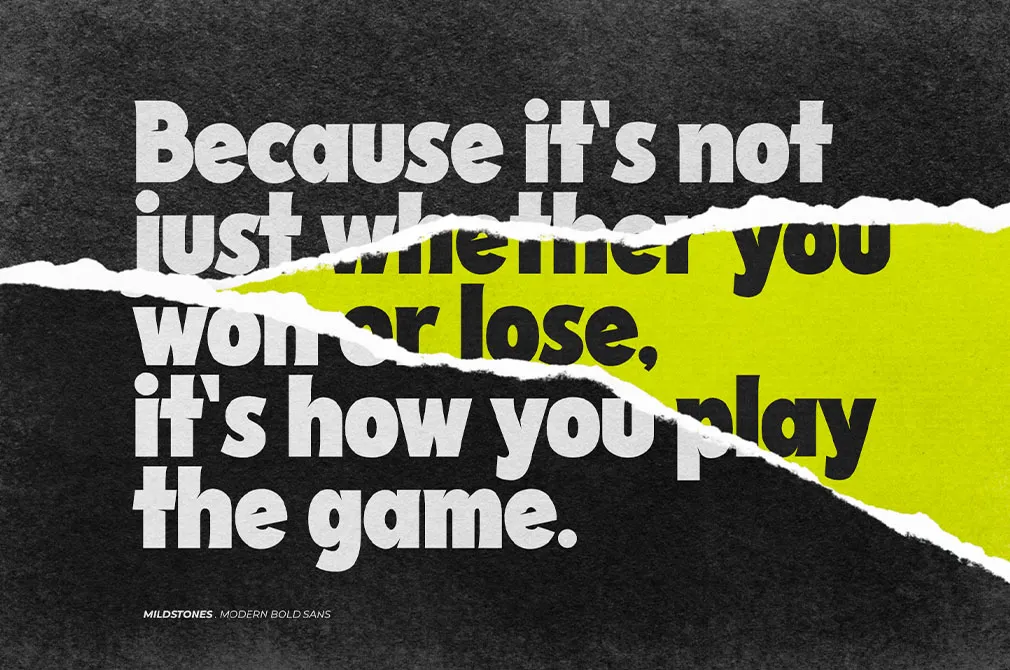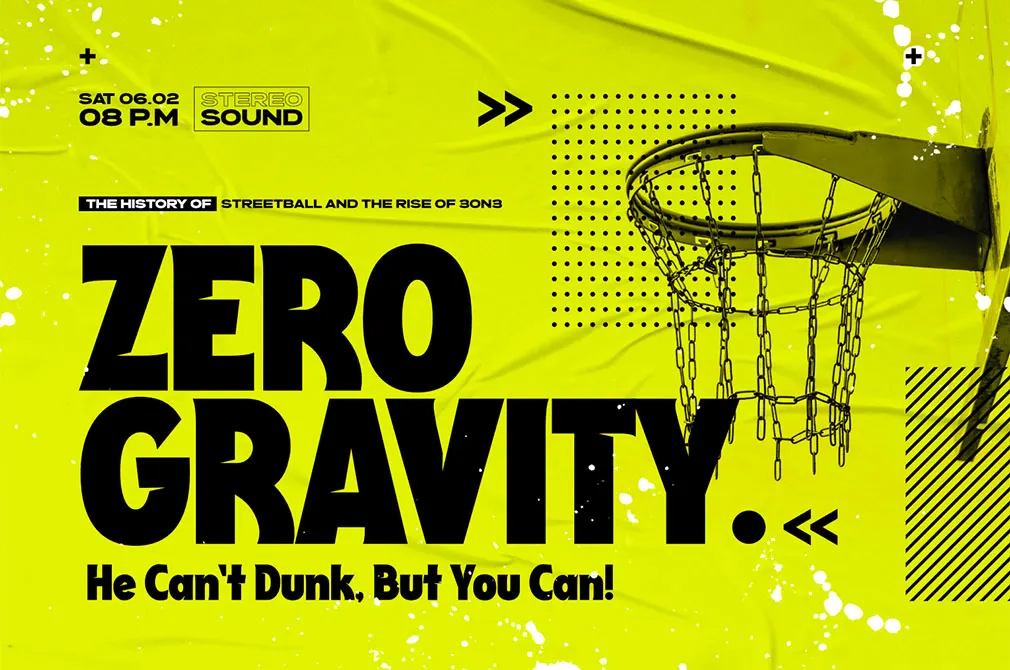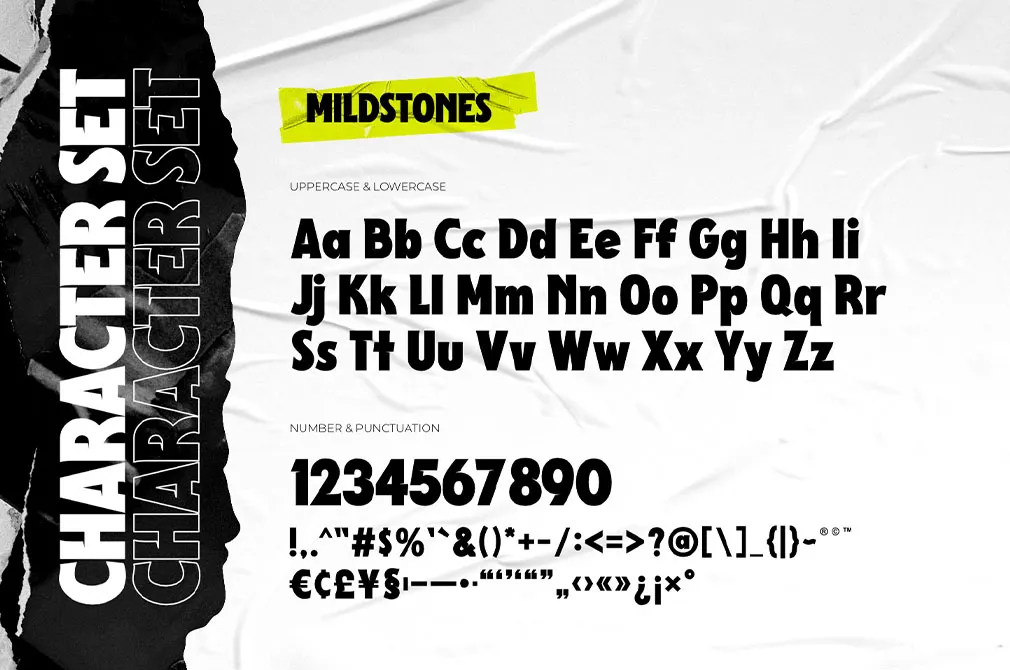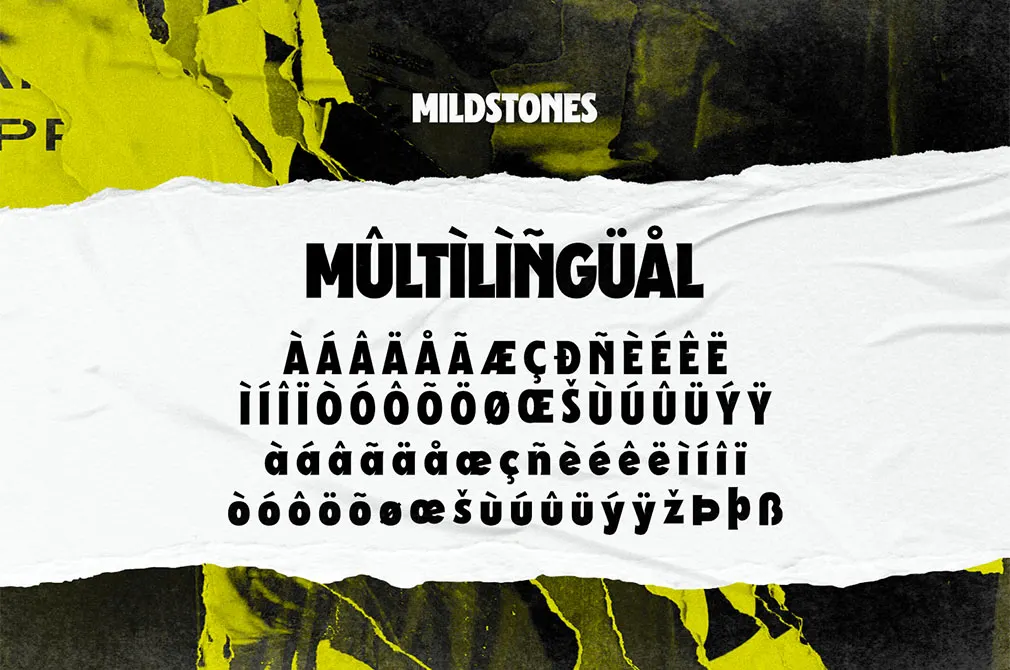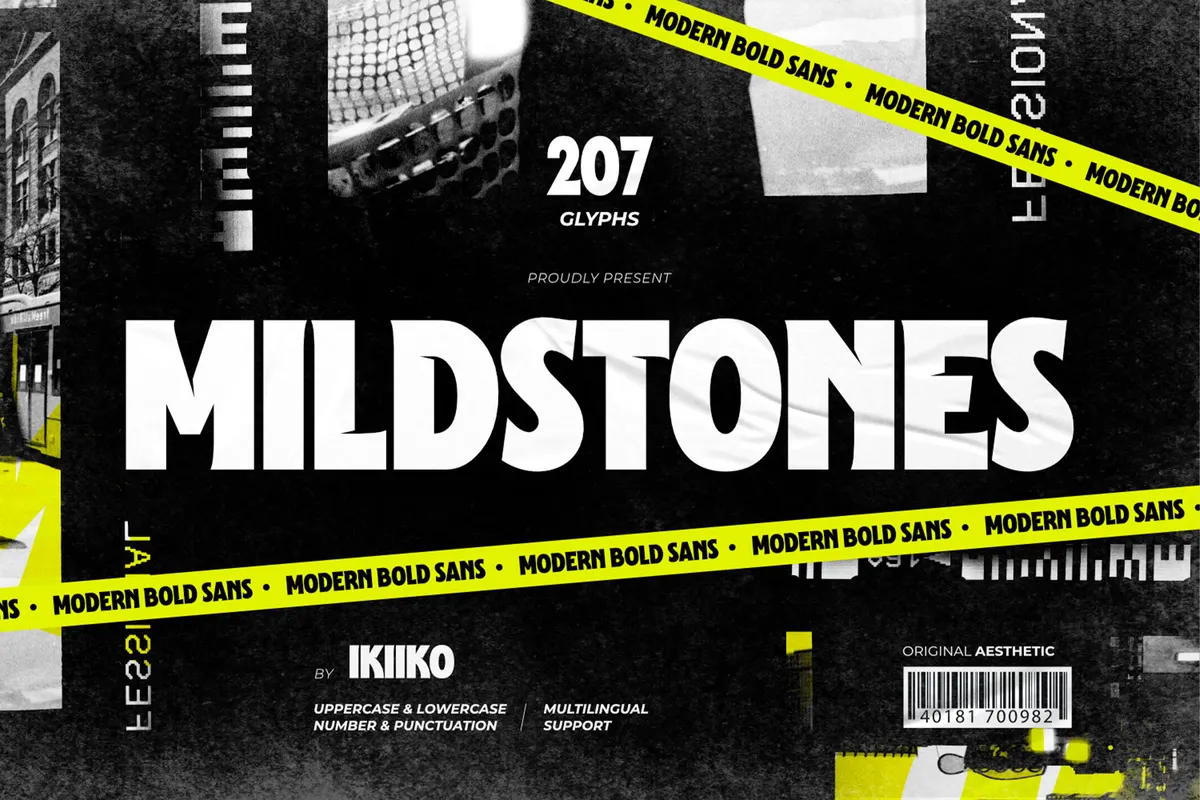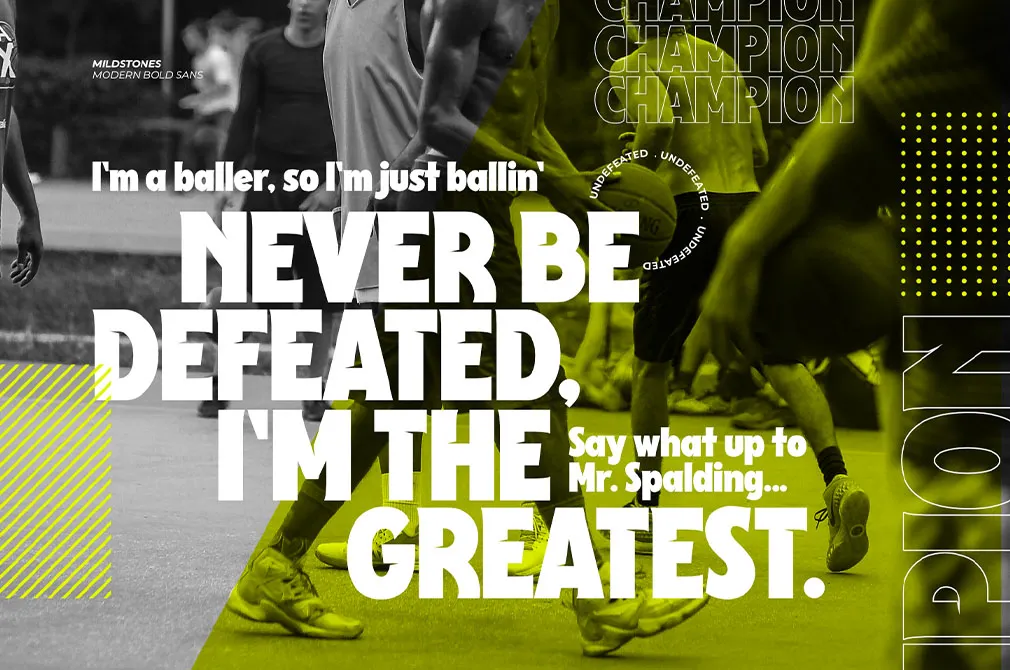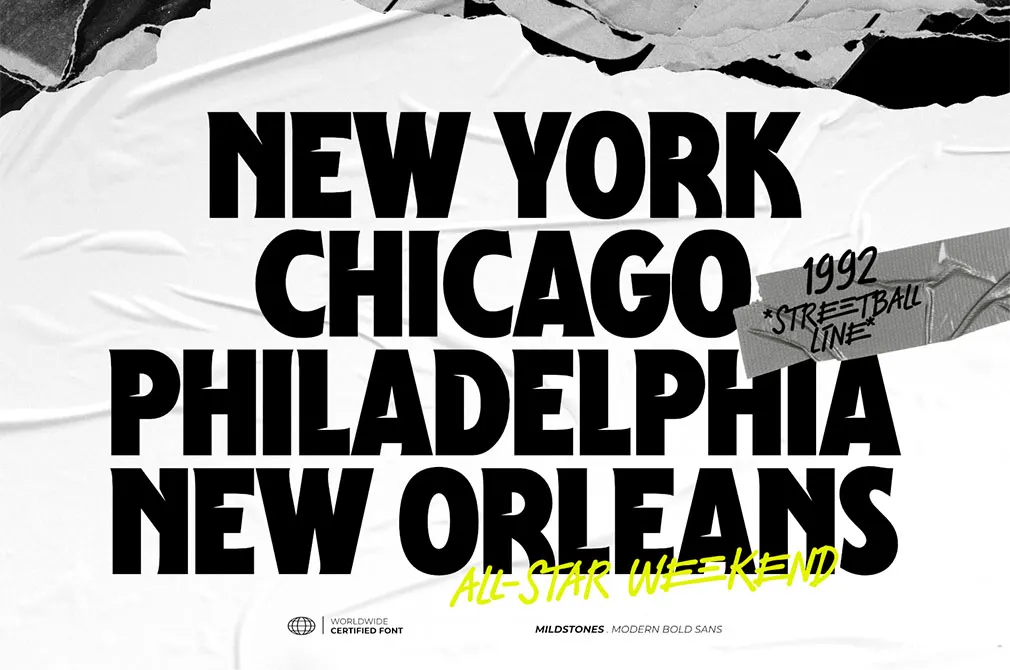
Mildstones — Modern Bold Sans
A bold typographic trend is on the agenda. The best of 2024 tendencies have peaked in Mildstones — a minimalist yet so loud sans serif.The Mildstones experience is more than simply a font. It has been designed to merge aesthetic and readability and create projects able to take your breath away. The font includes a complete set of characters and can be used in various modern designs: adverting, promos, headers, and sports packaging.